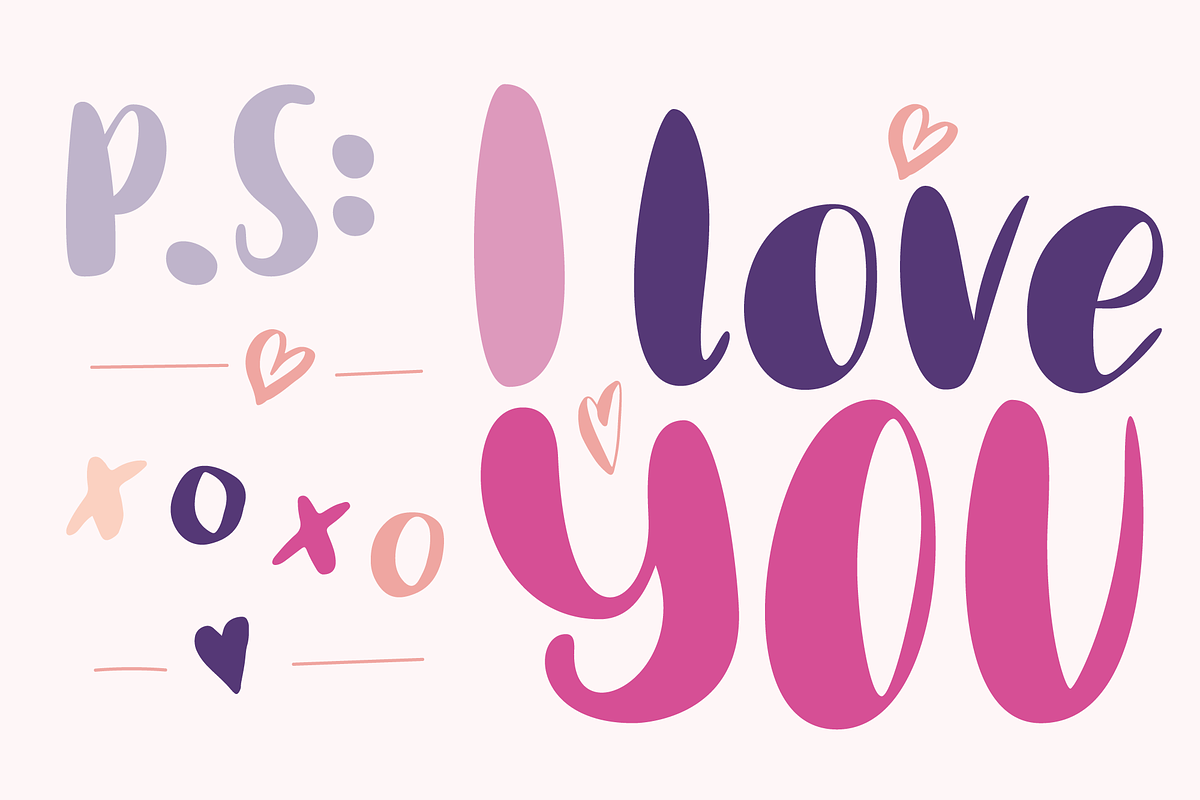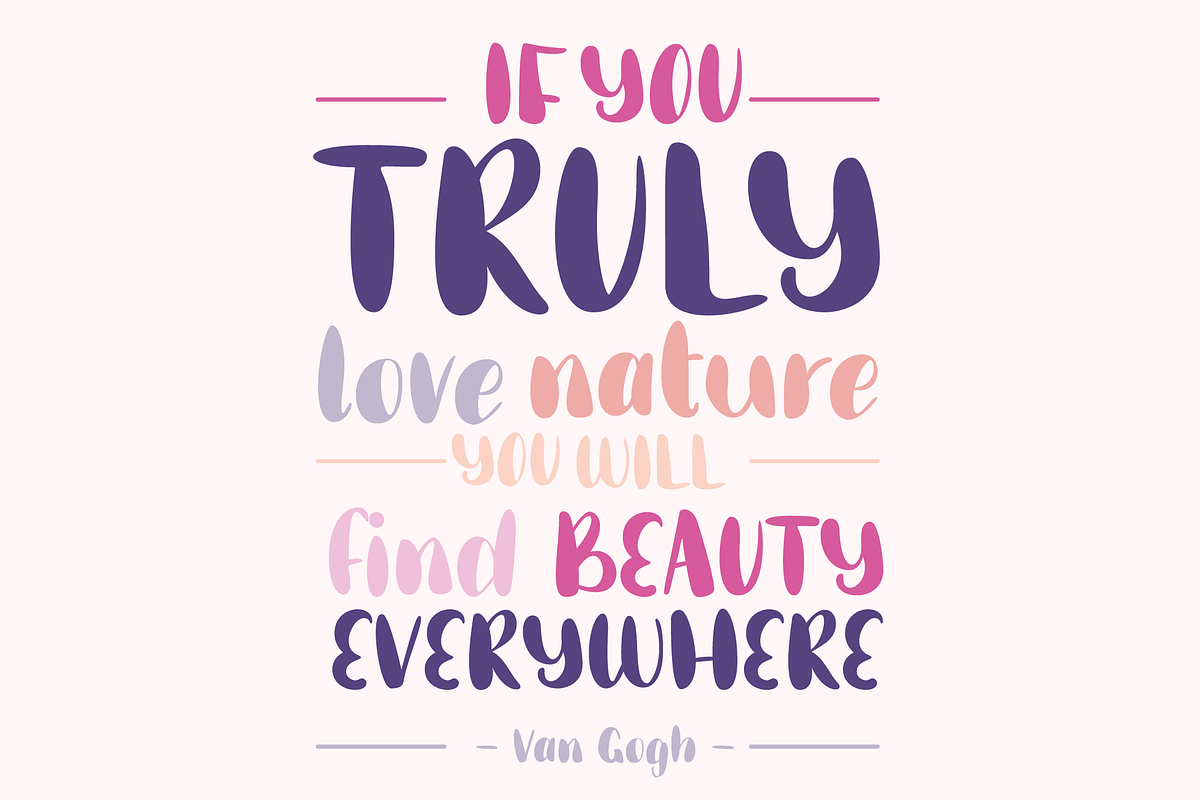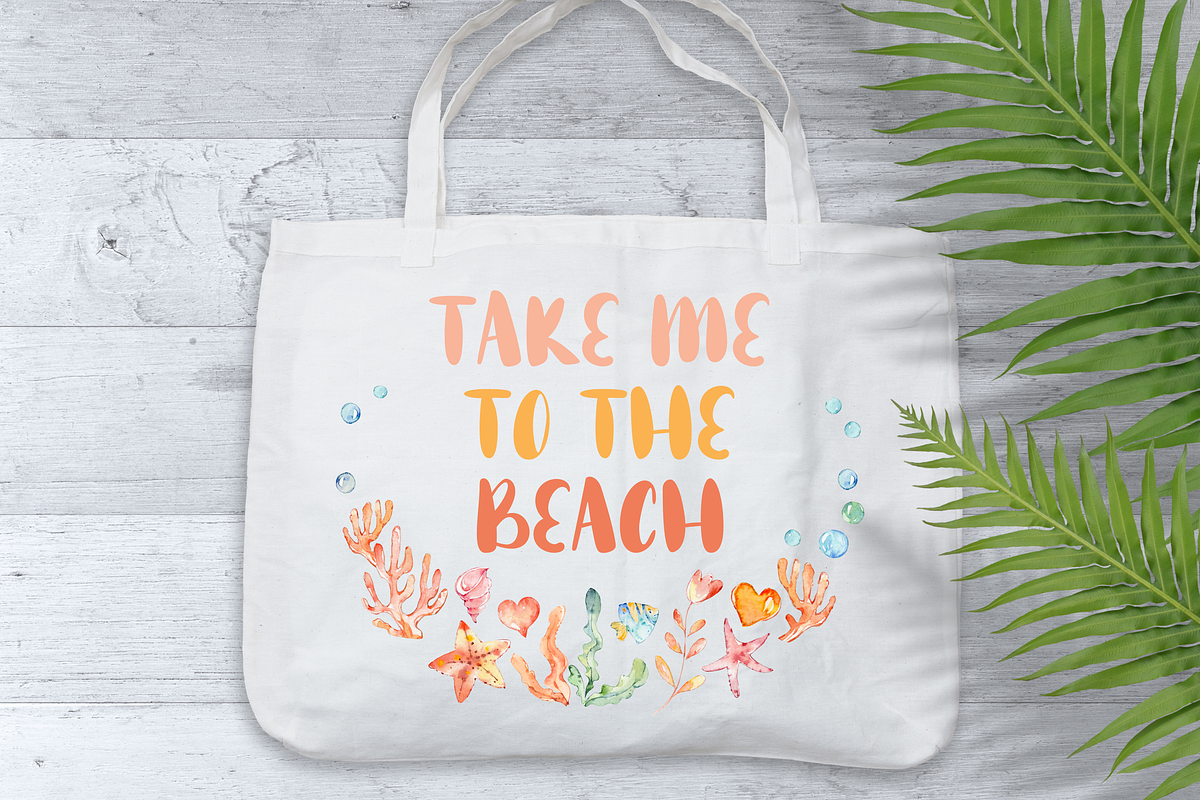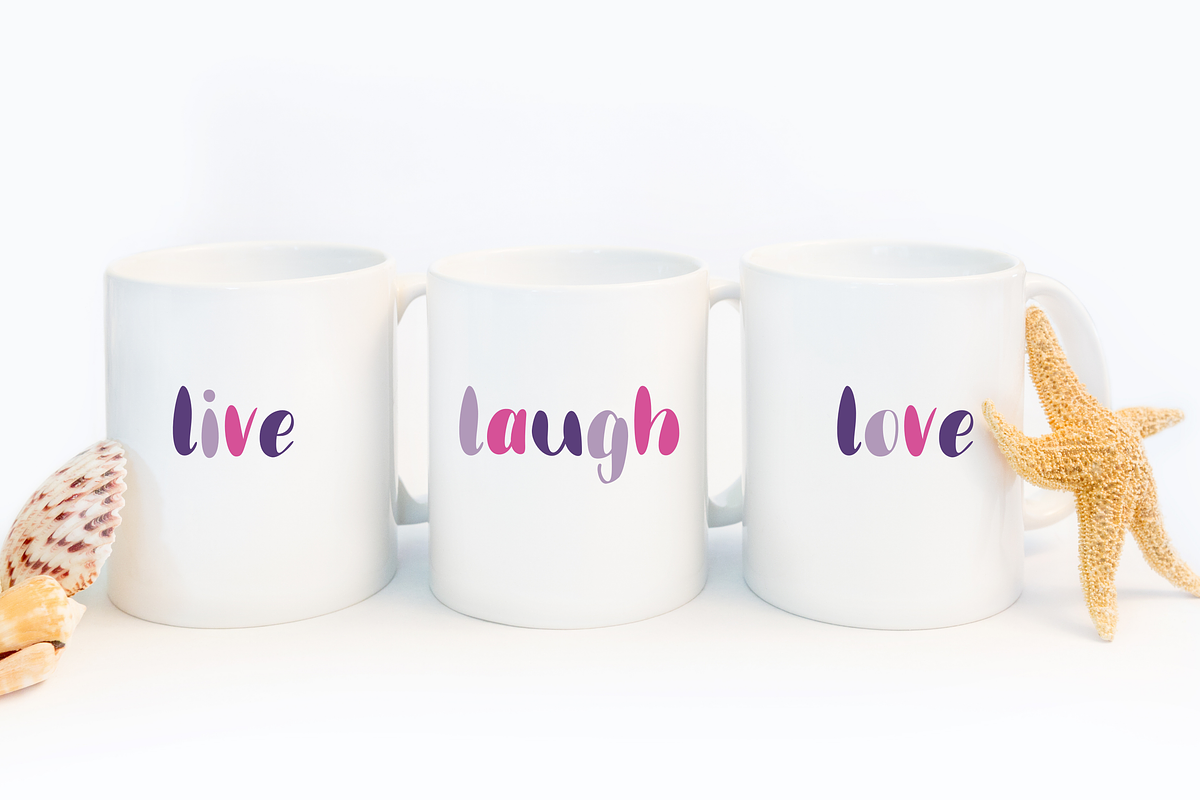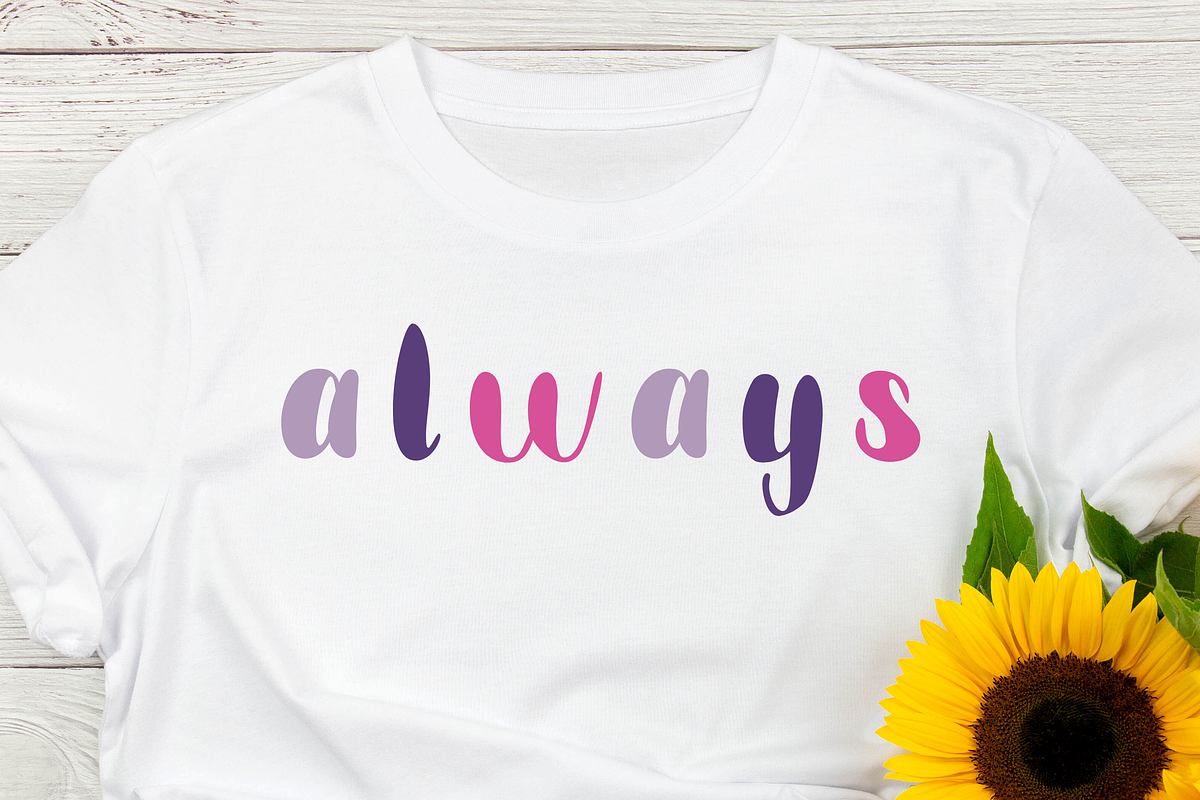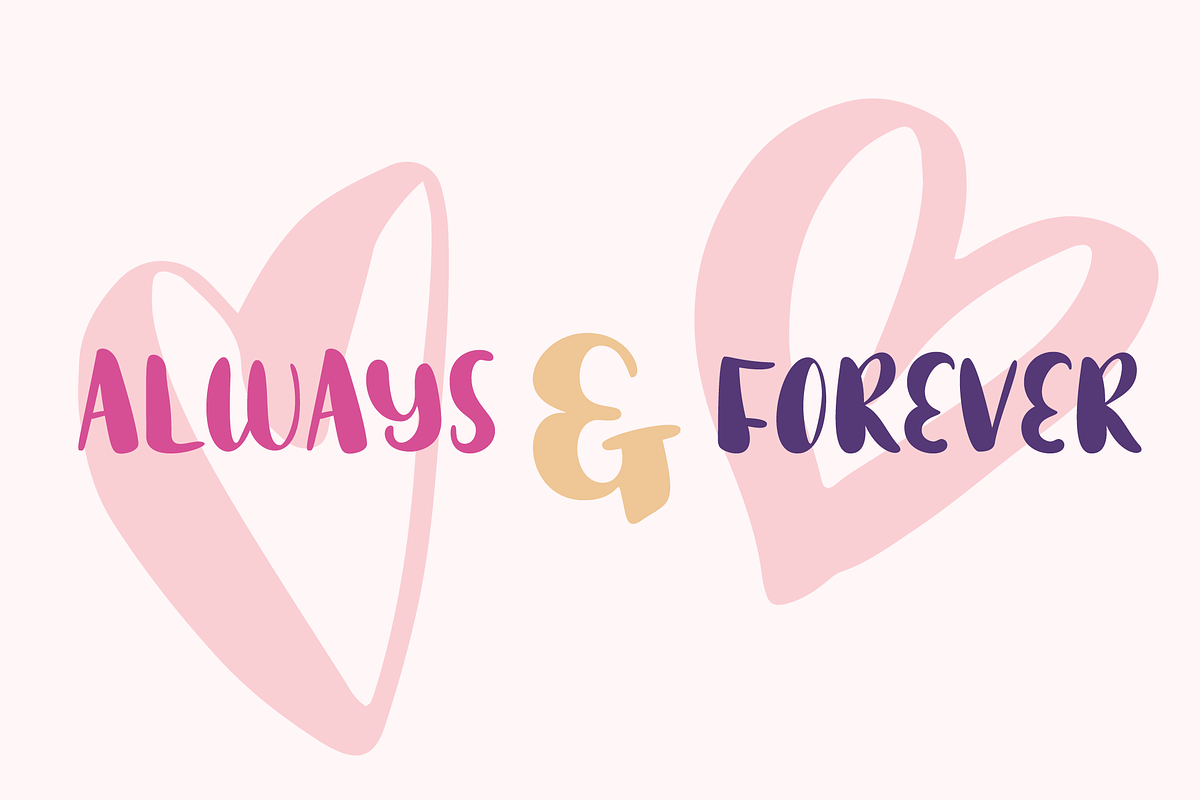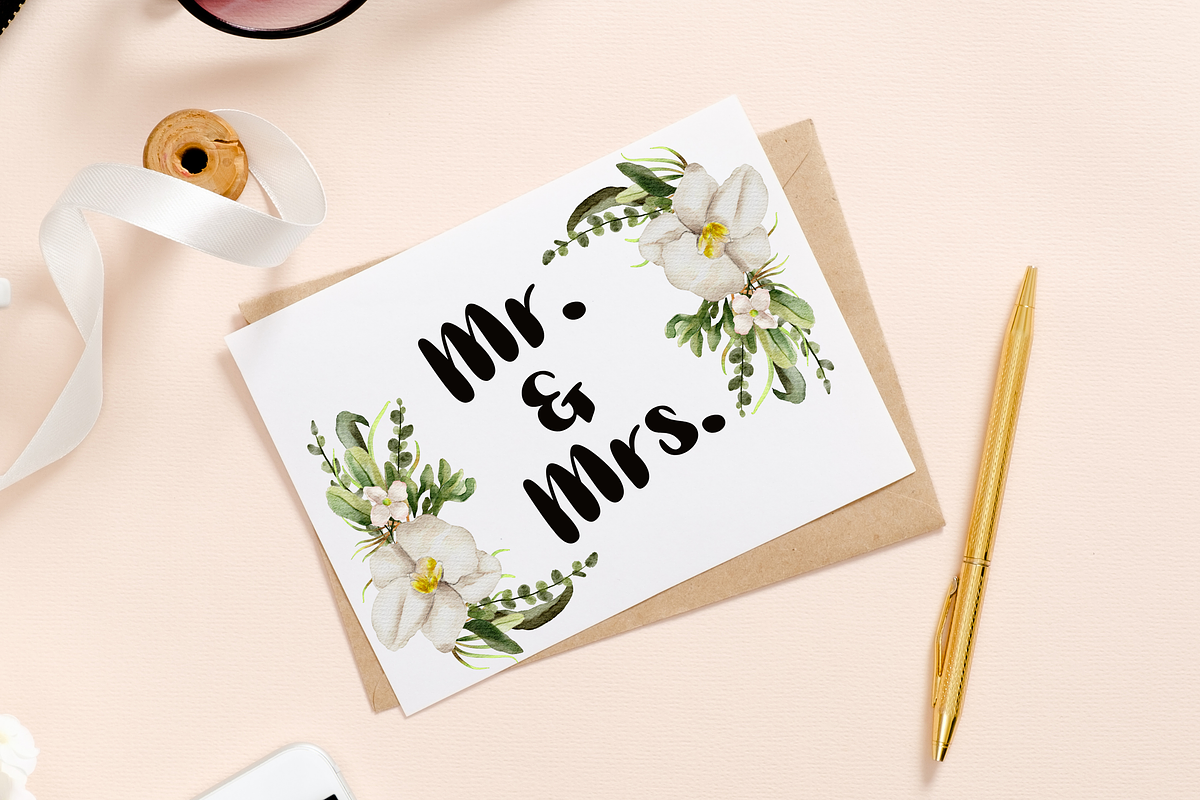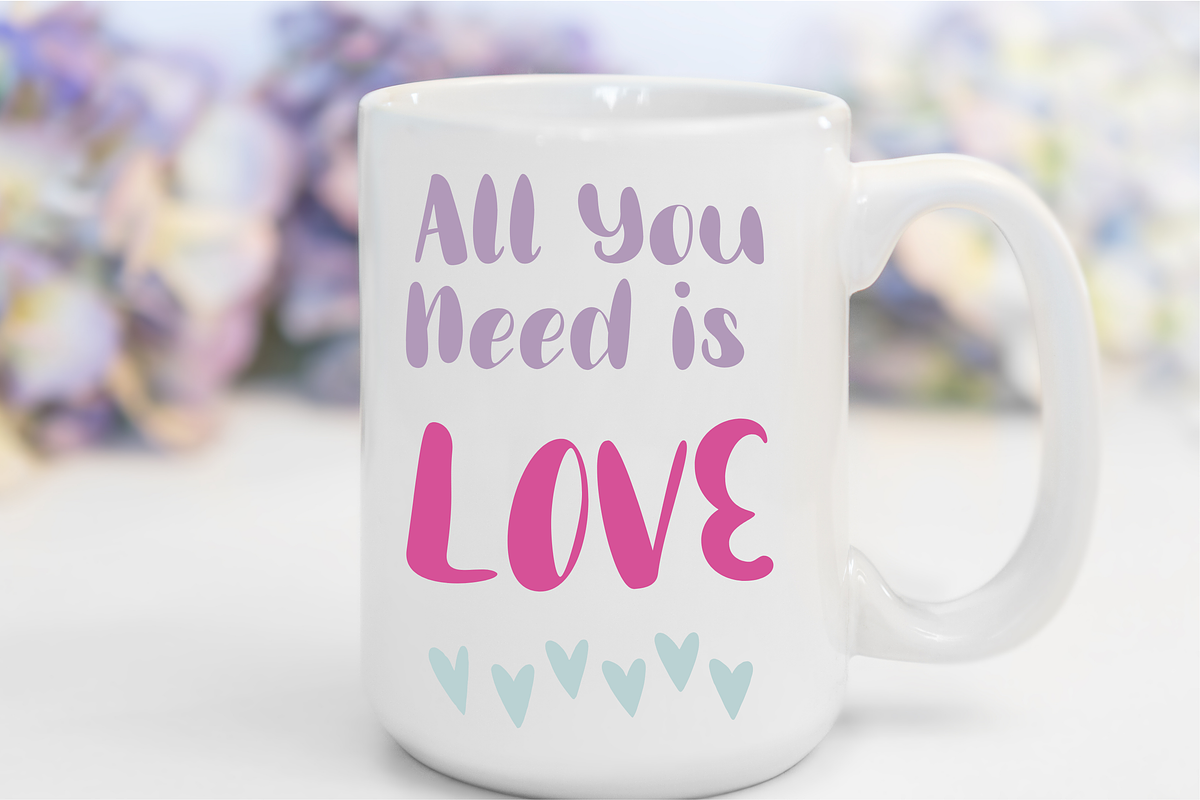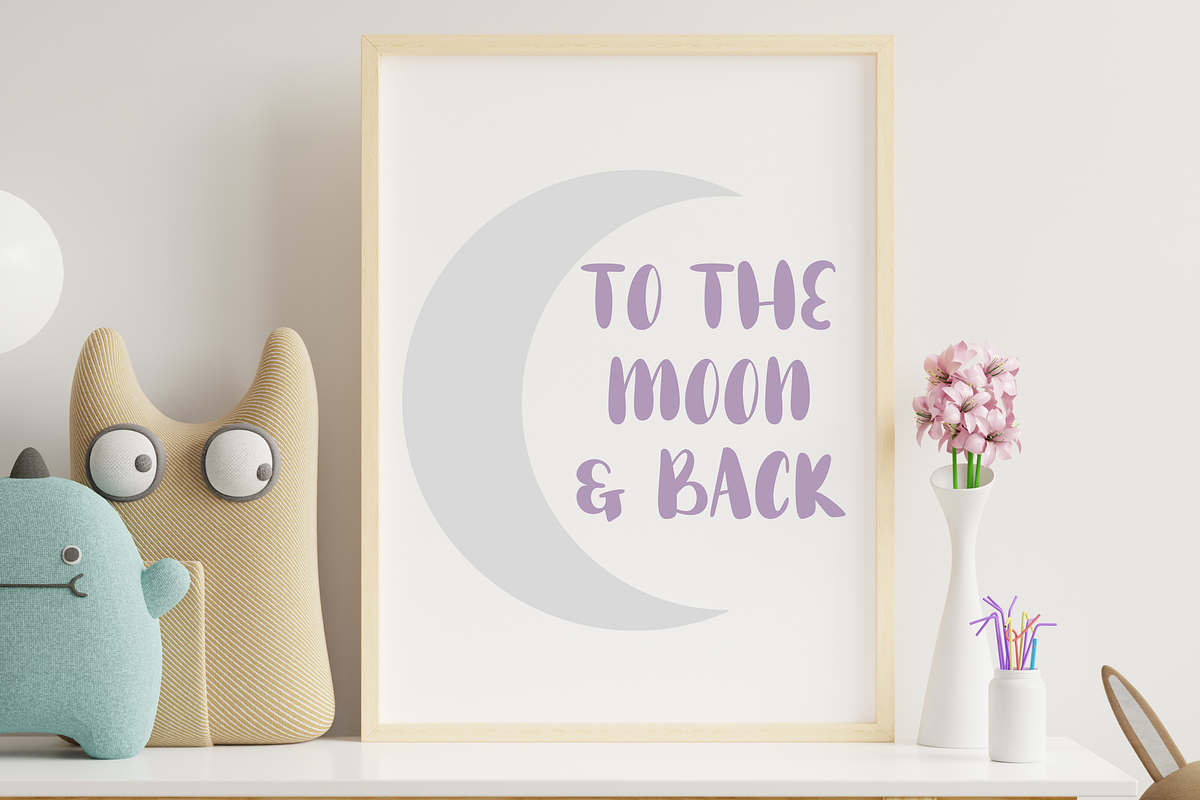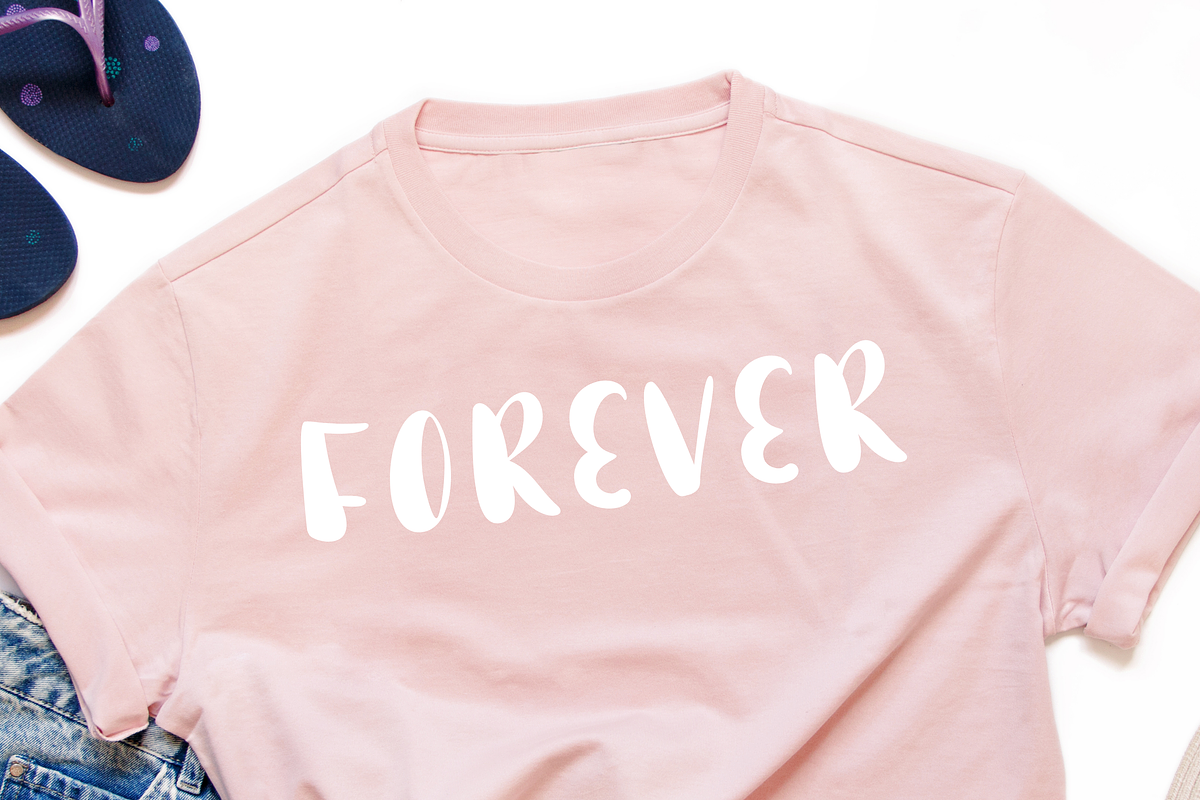
Truly Love Chunky Handwritten Font
Introducing our cute new font Truly Love - a chunky handwritten font perfect for punchy headlines and bold quotes.
Truly love is a thick hand drawn font that will give your designs a personal & relaxed vibe in posters, invitations, branding, flyers, and greetings card designs. It pairs particularly well with thin serif fonts for creative logo and web designs.
Truly Love has both an elegant and youthful vibe and is equally at home used as a professional logo or as a doodled quote. It's extra bold design makes it a great choice for outlined text and layering.